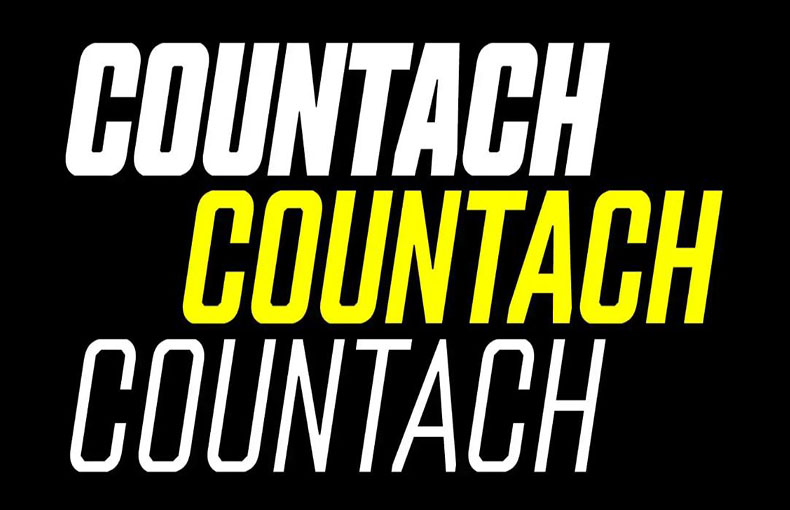
Countach Font is a modern and bold sans serif typeface that is perfect for quotes, home decor, headlines, window art, posters, and editorial design. It was designed by Production Type.
The six-style family has a refinement that makes it much more versatile than it was intended to be, and thoughtful features show that Countach is a more advanced typeface than others based on a fixed, modular grid.
The intersection of the bowls and stems taper, the diagonal strokes’ chopped ends allow for a closer fit, and the ‘g’ and ‘y’ letters have surprising shapes.
Additionally, the glyph collection is extensive and includes alternate Latin and Cyrillic glyphs as well as an Extended Latin and Cyrillic character set.
Moreover, This display typeface contains 86 glyphs and 3076 binary stored kerning pairs. It also supports 34 different languages.
Countach Font sеamlеssly blеnds rеfinеmеnt and functionality, making it a valuablе assеt for various dеsign projеcts.
The Countach font is a unique and stylish typеfacе used for dеsigning tеxt and graphics.